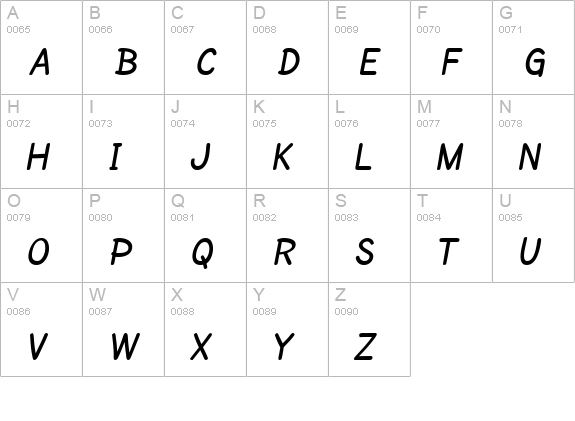
SF Cartoonist Hand Bold Font Details
SF Cartoonist Hand Bold is a strong, high-contrast variant in the SF typeface family \xE2\x80\x94 well suited to headlines, attention-grabbing titles, and strong calls-to-action.
SF Cartoonist Hand Bold is a delightful and playful cartoon font that captures the essence of hand-drawn illustrations. With its bold and whimsical strokes, this font is perfect for adding a touch of fun and charm to any design project. Whether you're creating a children's book, a comic strip, or a vibrant poster, SF Cartoonist Hand Bold is sure to bring your words to life. This font exudes a sense of youthful energy and imagination, making it a popular choice for designers looking to create designs that appeal to both kids and adults alike. Its rounded edges and slightly irregular letterforms give it a handcrafted feel, as if it was drawn with a pencil or marker. Each letter has a unique personality, adding character and personality to your text. One of the best things about SF Cartoonist Hand Bold is that it is freely available to download at FontsMarket.com. This means that you can easily access this font and use it in your projects without any restrictions. Whether you're a professional designer or a hobbyist, you'll appreciate the accessibility and versatility of this font. So, if you're looking to add a touch of whimsy and playfulness to your designs, look no further than SF Cartoonist Hand Bold. With its free availability and charming aesthetic, this font is a must-have for any designer's toolkit. Download it today and let your creativity run wild!